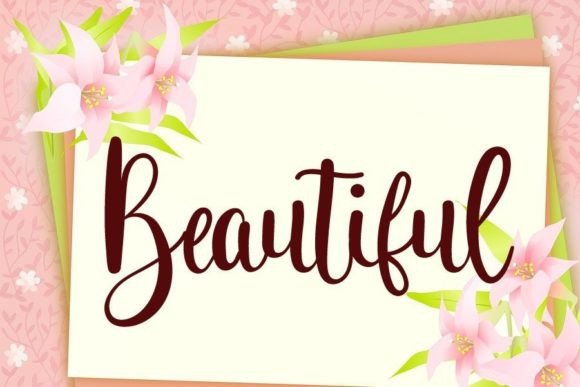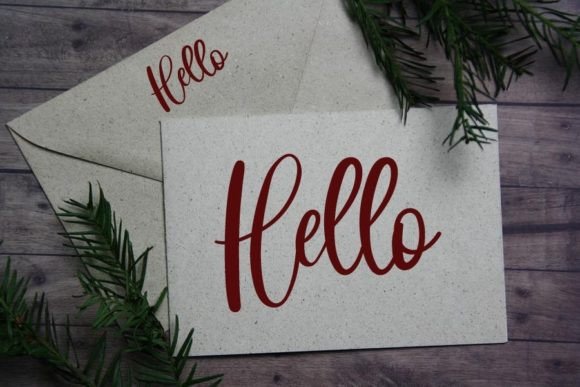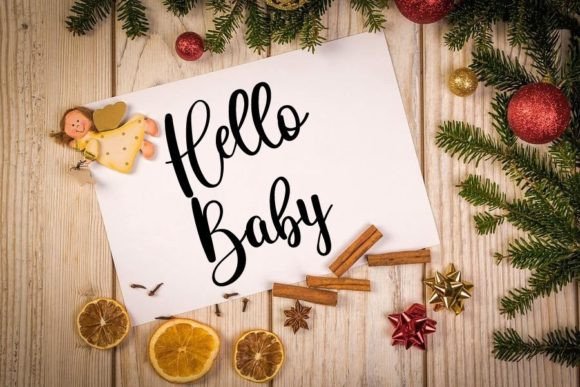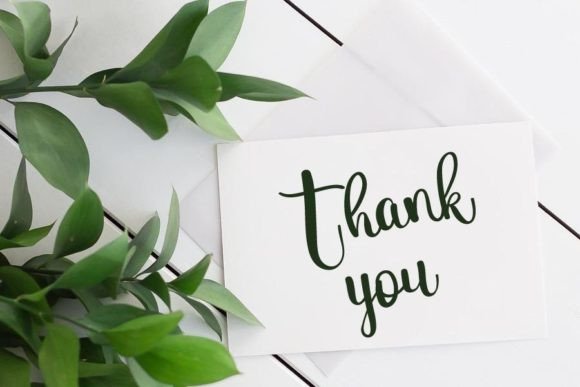
Introducing Anytime Font: Elevate Your Design Projects with a Fresh and Beautiful Handwritten Style
Are you on the hunt for a font that can instantly elevate your design projects? Look no further than Anytime Font, a stunning handwritten font that’s perfect for a wide range of applications. Whether you’re working on a YouTube banner, wedding invitation, logo, or craft project, Anytime Font is the ideal choice for designers and crafters looking to add a touch of elegance and sophistication to their work.
What Makes Anytime Font So Special?
Anytime Font is a fresh and beautiful handwritten font that’s designed to help your business stand out from the crowd. Its simple yet unique style makes it perfect for a variety of design projects, from branding and marketing materials to personal crafts and DIY projects. With Anytime Font, you can add a personal touch to your designs and make them more engaging and memorable.
Anytime Font is incredibly versatile and can be used for a wide range of design projects, including:
- YouTube banners and covers: Make your YouTube channel stand out with a custom banner or cover that showcases your brand’s personality and style.
- Logos and branding: Create a unique and memorable logo that reflects your business’s values and mission.
- Wedding invitations and cards: Add a touch of elegance and sophistication to your wedding invitations and cards with Anytime Font.
- Flyers and brochures: Create eye-catching flyers and brochures that grab attention and drive results.
- Crafts and DIY projects: Use Anytime Font to add a personal touch to your crafts and DIY projects, such as scrapbooking, journaling, and more.
- Mockups and presentations: Use Anytime Font to create stunning mockups and presentations that showcase your designs and ideas.
Benefits of Using Anytime Font
By using Anytime Font in your design projects, you can enjoy a range of benefits, including:
- Unique and memorable designs: Anytime Font’s unique style will help your designs stand out from the crowd and leave a lasting impression on your audience.
- Elegance and sophistication: Anytime Font adds a touch of elegance and sophistication to your designs, making them perfect for high-end brands and luxury products.
- Easy to read and understand: Despite its elegant style, Anytime Font is easy to read and understand, making it perfect for body text and captions.
- Versatile and flexible: Anytime Font can be used for a wide range of design projects, from digital designs to print materials.
How to Use Anytime Font in Your Design Projects